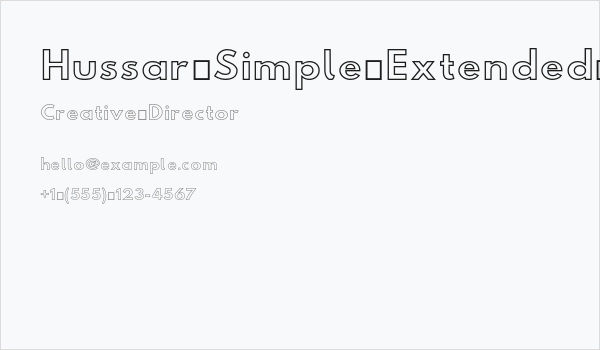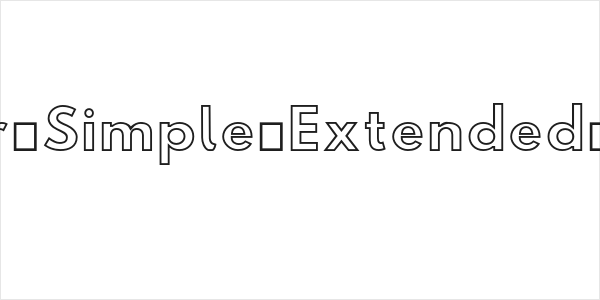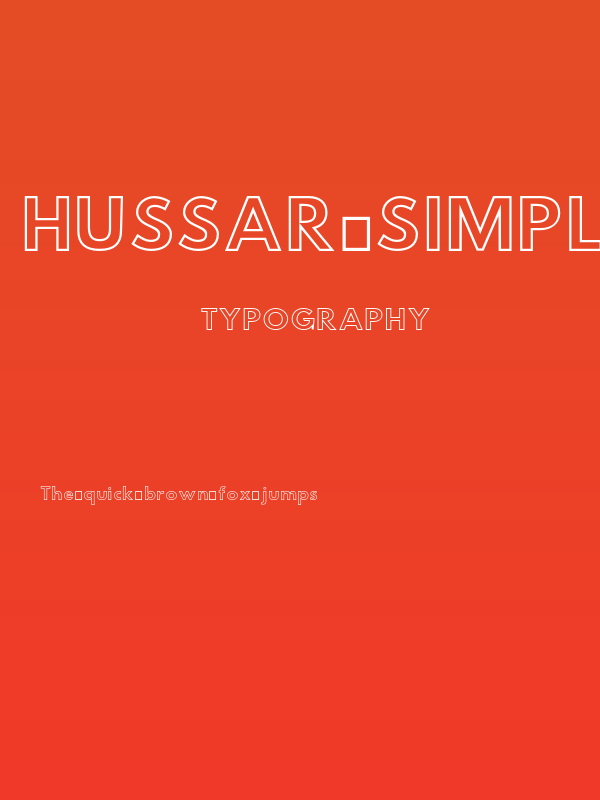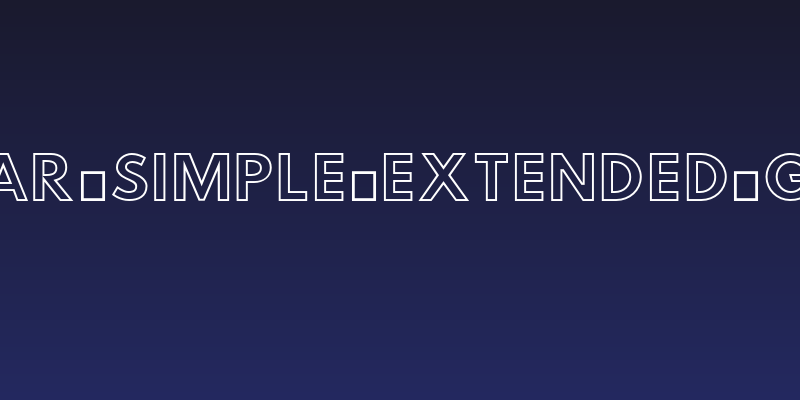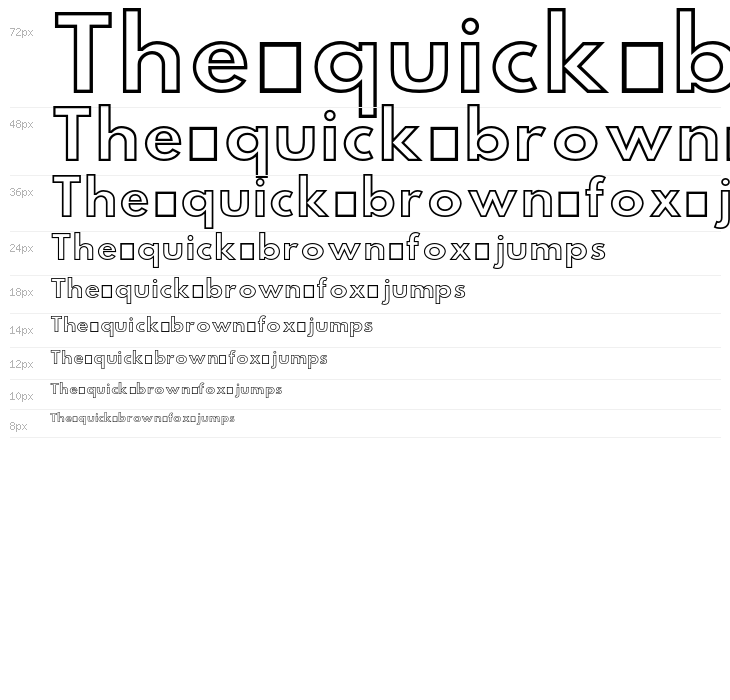
Hussar Simple Extended Ghost Font
Hussar Simple Extended Ghost Description
This font features a clean, geometric design with a modern flair. Its characters are outlined, providing a unique hollow effect that adds a touch of sophistication and elegance. The uppercase and lowercase letters maintain a consistent width, creating a harmonious balance. The numerals are well-proportioned, ensuring readability. Special characters are included, enhancing its versatility. The overall design is sleek and contemporary, making it suitable for a variety of applications where a modern and stylish appearance is desired.